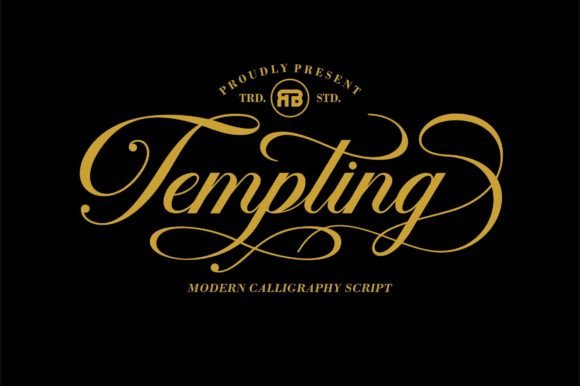
Introducing the mesmerizing Tempting Font, a true gem in the world of script fonts! Expertly crafted by RGB Studio, this font is a must-have for all calligraphy enthusiasts and creative souls.
With its intricate details and flawless design, Tempting Font is guaranteed to captivate your imagination and elevate your designs to new heights. Whether you're working on a wedding invitation, a logo, or a social media post, this font will effortlessly add a touch of elegance and sophistication.
But what makes Tempting Font truly special is its versatility. No matter the topic or the style you're aiming for, this font will seamlessly adapt and enhance any creation. Its smooth curves and impeccable strokes create a harmonious flow that is simply irresistible.
Unlocking the full potential of Tempting Font is a breeze, thanks to its PUA encoding. This means that you can effortlessly access all the additional glyphs and swashes, giving you endless possibilities to customize and personalize your designs.
Immerse yourself in a world of creativity and let Tempting Font be your trusted companion on your artistic journey. From its breathtaking beauty to its unrivaled adaptability, this font will spark emotions and inspire awe in anyone who lays eyes on it.